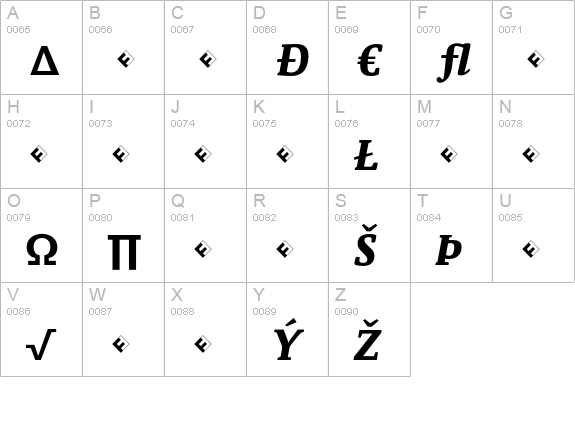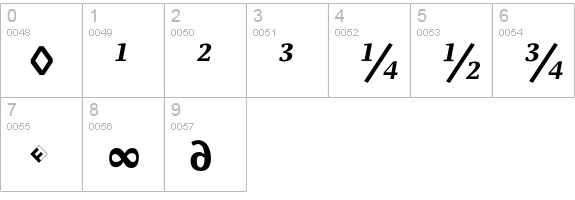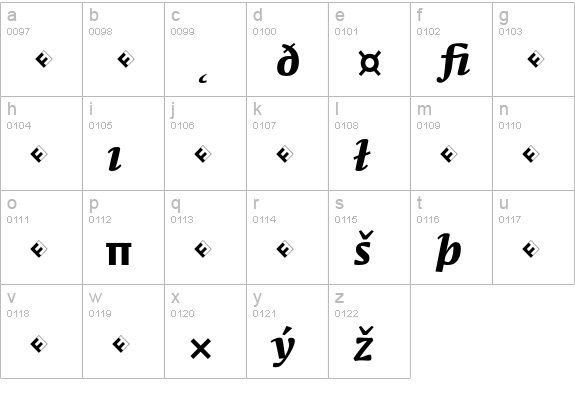
Parable-ExtraBoldItalicExp Font Details
Parable-ExtraBoldItalicExp is a unique and captivating font that effortlessly combines boldness, elegance, and a touch of playfulness. Its distinctive italic style adds a dynamic and eye-catching element, making it perfect for attention-grabbing headlines, branding materials, and creative designs. This font stands out from the crowd with its extra bold weight, making a powerful statement wherever it is used. Its carefully crafted curves and intricate details showcase a high level of craftsmanship, ensuring that every character exudes a sense of sophistication and refinement. Parable-ExtraBoldItalicExp is not only visually striking but also incredibly versatile. Whether you are designing a poster, a logo, or a website, this font will effortlessly adapt to any project, adding a touch of personality and flair. Its strong presence on the page commands attention, while its elegant and flowing lines create a harmonious balance that is pleasing to the eye. What sets Parable-ExtraBoldItalicExp apart is that it is freely available to download at FontsMarket.com. This means that you can unleash your creativity and utilize this remarkable font without any cost or restrictions. Whether you are a professional designer or an enthusiastic hobbyist, this font's accessibility allows you to explore endless possibilities and bring your ideas to life. So, why settle for ordinary when you can have extraordinary? Download Parable-ExtraBoldItalicExp today and elevate your designs to new heights. Let this font be your creative companion, empowering you to captivate your audience and leave a lasting impression.